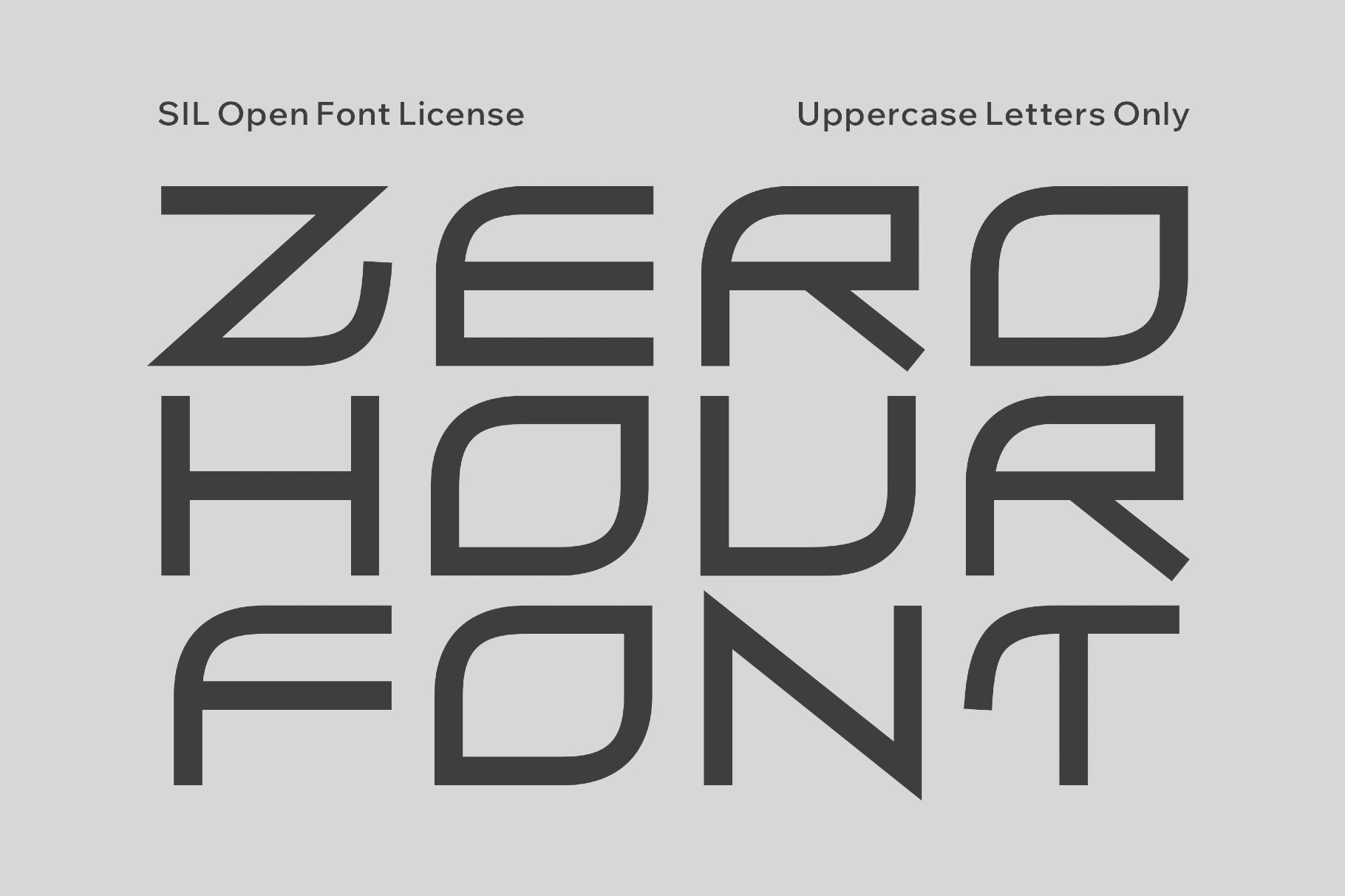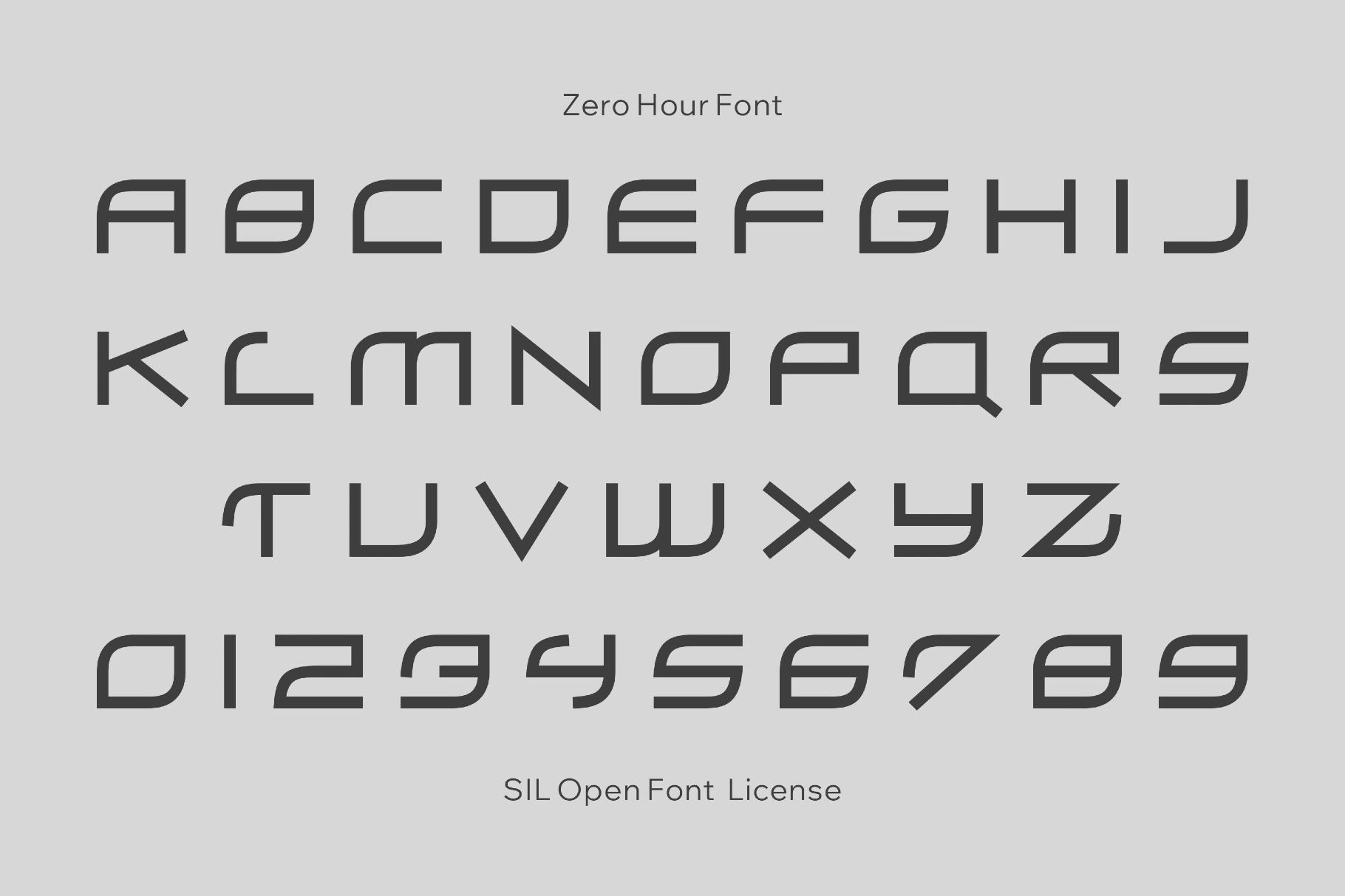
Zero Hour Sci-Fi Font
Zero Hour
When you are looking for something to remember that Fear is the mind-killer, you have a Zero Hour: the visual equivalent of an alarm, a mission timer, or a warning screen. Its shapes look heavy and deliberate, almost like the letters were cut from reinforced panels.
This retrofuturistic space font is effective in poster titles, game branding, album sleeves, tech packaging, motion graphics, event visuals, and editorial covers.